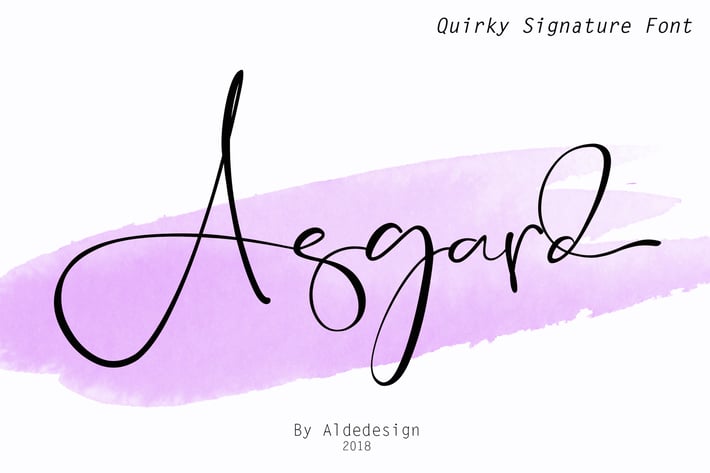
Asgard - Signature Font
Asgard is a stylish signature font that is inspired by modern branding and photography.
Itβs easy to use, to create a stunning watermark for your photos, invitations, branding.
It also works great as a business signature or on other branding materials.
Stylish handwritten style
Special Ligatures